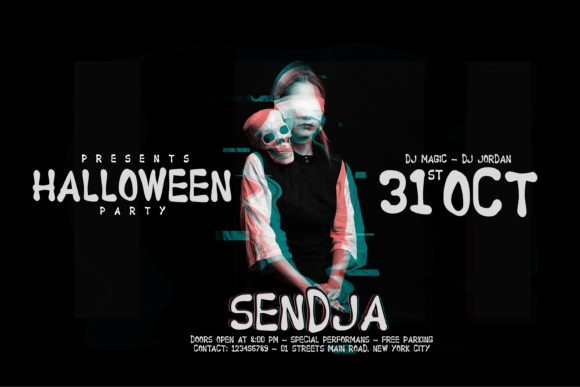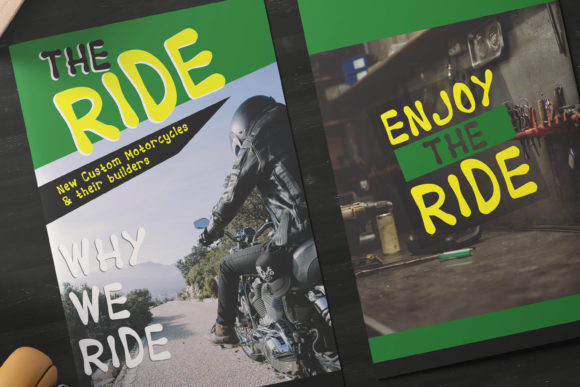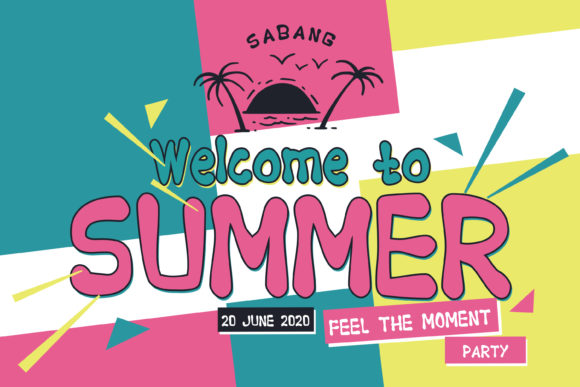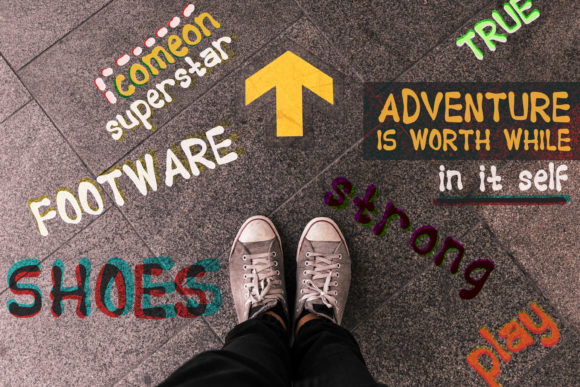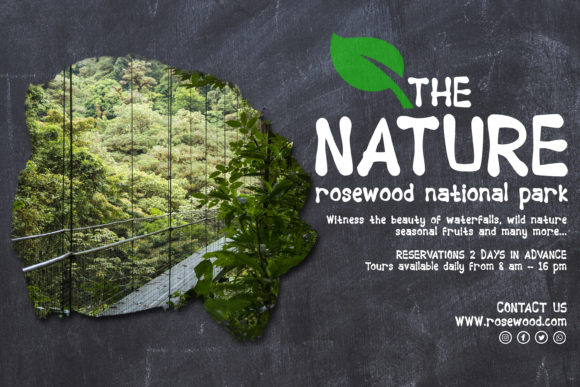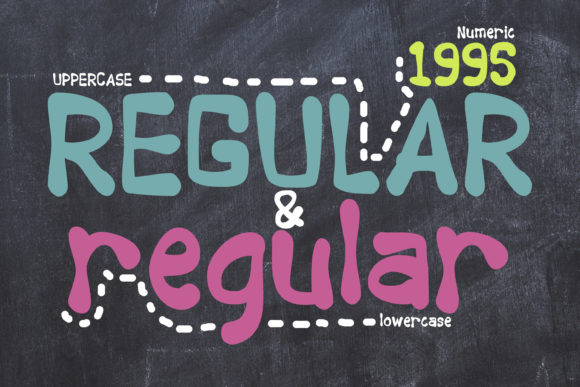
The Birth of a New Font: House of Kanoe
As designers, we’ve all been there – staring at a blank page, trying to bring a new idea to life. The cursor blinks, and our minds go blank. But what if, in that moment, you stumbled upon the perfect font to spark your creativity? For me, that moment came when I discovered the House of Kanoe Font. This charming display font, crafted with a dry brush, has a natural and realistic look that feels almost hand-drawn.
The House of Kanoe Font features quirky rounded letters that exude friendliness and organic charm. Its unique style makes it perfect for designers looking to add a touch of whimsy to their projects. Whether you’re creating a children’s book, a logo, or a social media campaign, this font is sure to bring a smile to your audience’s face. With its versatility and charm, the House of Kanoe Font is a valuable addition to any designer’s toolkit.
- Unique Characteristics: A modern, sans-serif font with a unique blend of Asian and Western influences, featuring a distinctive x-height and a wide range of language support
House of Kanoe Font Review
Overall, I think the House of Kanoe Font is a solid choice for designers looking for a unique and elegant display font. ✨ It has a beautiful, hand-crafted feel that’s reminiscent of traditional Hawaiian wood carvings.
Here are some things that I think work well in this font:
- ✨ Beautifully crafted letterforms that are both elegant and distinctive
- ✨ Great for use in titles, headings, and other display text
- ✨ The font comes in a range of weights and styles, making it versatile and easy to use
However, there are a few limitations that I think are worth mentioning:
- ⚠️ The font may be a bit too ornate for some designs, and could be overwhelming if used too extensively
- ⚠️ The font is not as legible at small sizes, so it’s best to use it in larger point sizes
- ⚠️ The font does not include a wide range of language support, which may be a limitation for designers working on multilingual projects
Overall, I think the House of Kanoe Font is a great choice for designers who are looking for a unique and elegant display font. While it may have some limitations, I think the benefits of using this font far outweigh the drawbacks.
Getting the Most Out of House of Kanoe Font
To get the most out of the House of Kanoe Font, use it for:
- High-end branding and packaging design.
- Magazine and newspaper headlines.
- Special event invitations and stationery.
Remember to use the font consistently across your design to create a strong brand identity.